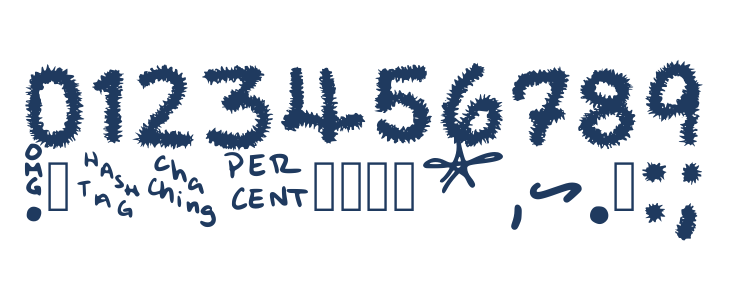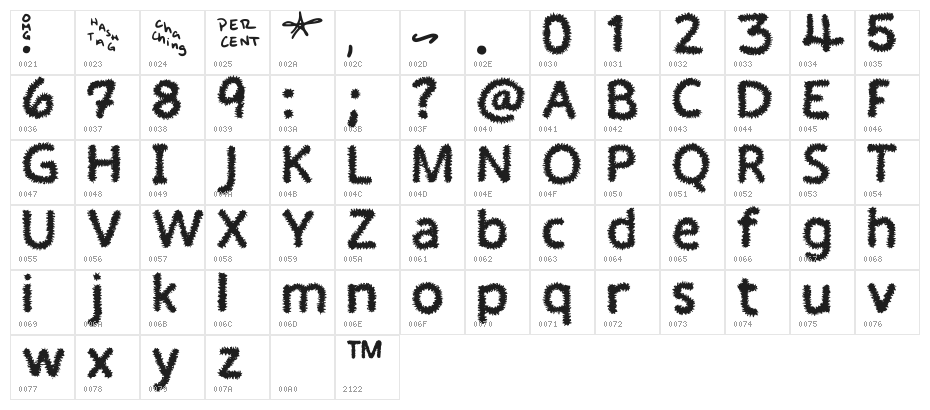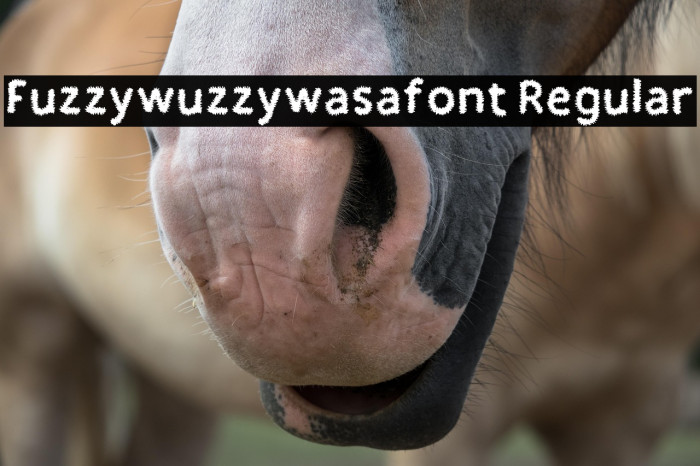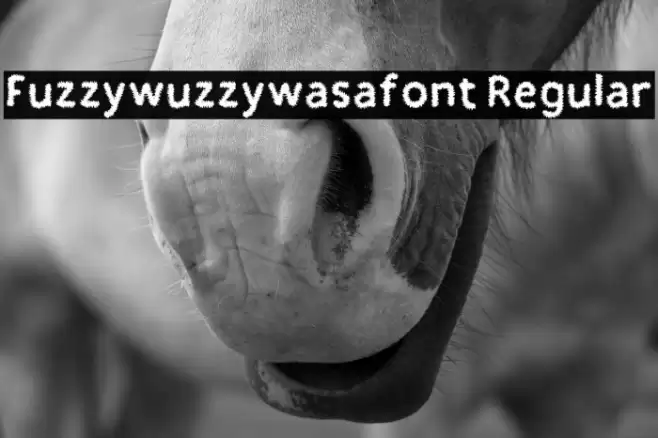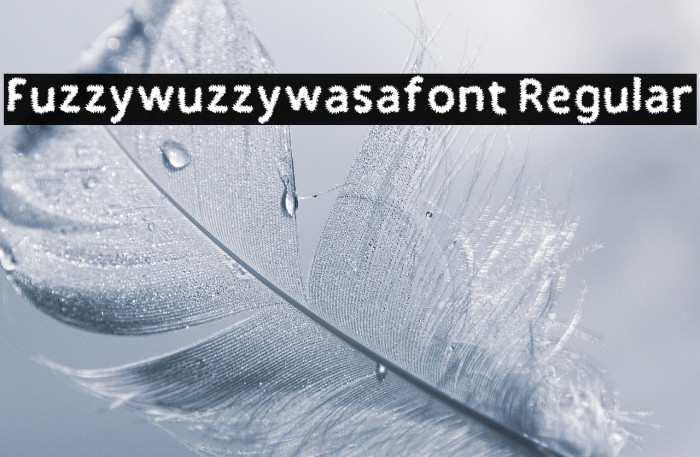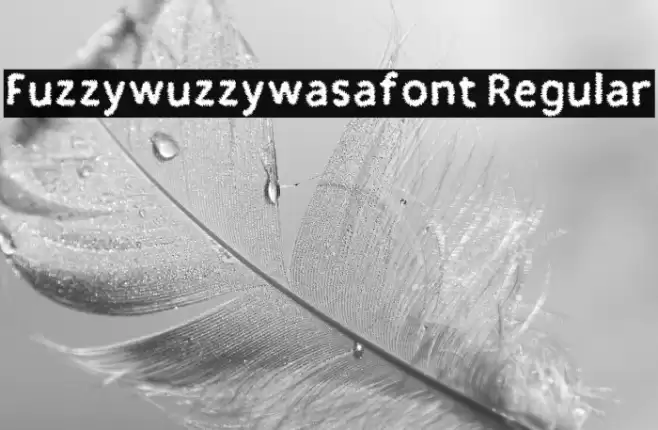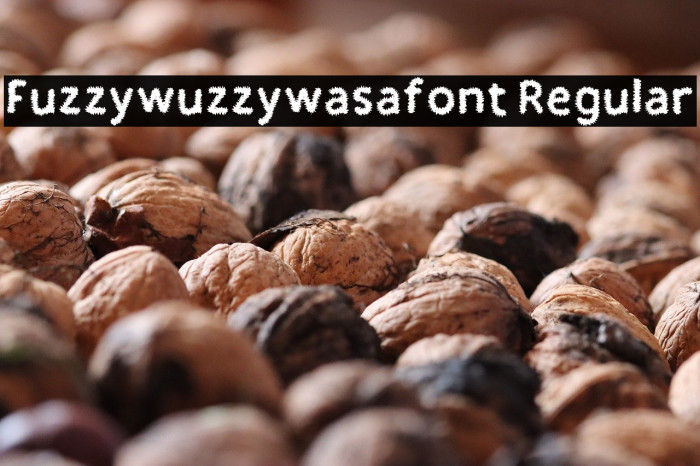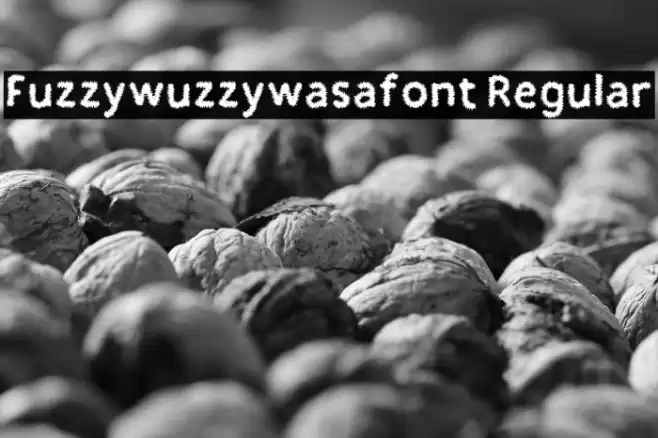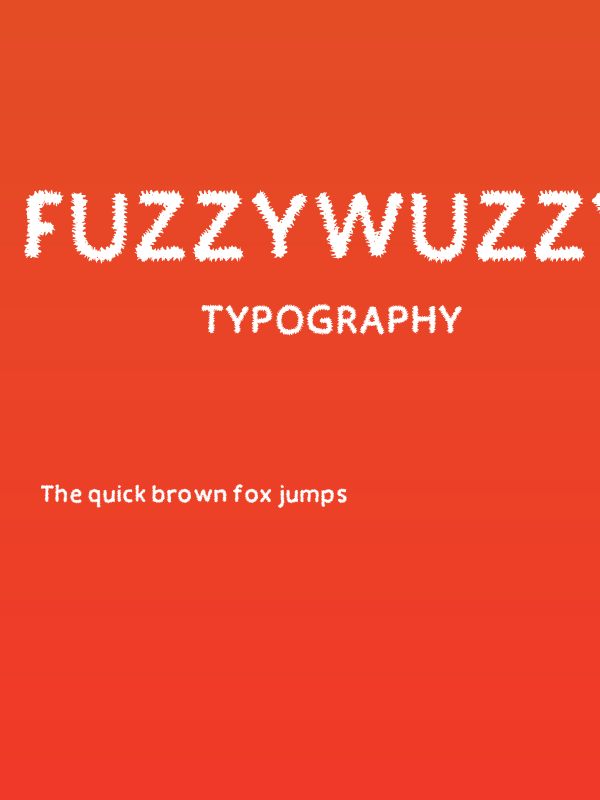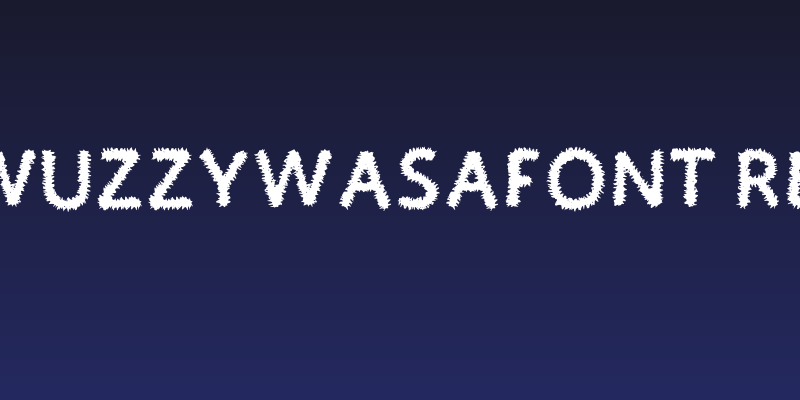
Fuzzywuzzywasafont Regular Font
Fuzzywuzzywasafont Regular Description
This font features a unique, playful design with a fuzzy, textured appearance that gives each character a lively and dynamic feel. The letters are bold and slightly irregular, creating a sense of movement and energy. The uppercase and lowercase letters maintain a consistent style, with rounded edges and a whimsical flair. The numbers and special characters follow the same playful theme, making the font suitable for creative and informal projects. Its distinctive look makes it stand out, perfect for designs that aim to capture attention and convey a sense of fun.